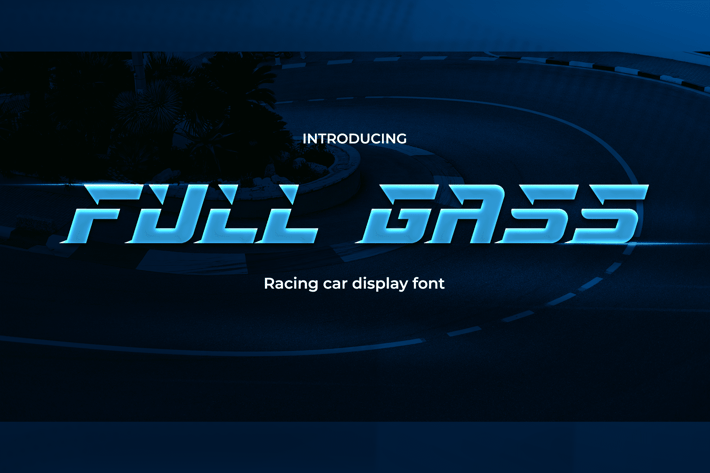
Full Gass - Sporty Car Racing Font
Get ready to take your designs to the fast lane with Full Gass font. This font is perfect for all your sport and racing needs, from game promotions to sports banners and everything in between.
With its sleek and dynamic design, Full Gass font will give your projects the energy and excitement they need to stand out. Its bold and sharp lettering captures the essence of speed and competition, making it the perfect choice for any racing or car-related project.
So rev up your designs and feel the speed with Full Gass font. Whether you're creating game graphics, advertising a racing event, or designing a sport poster, Full Gass font will give your projects the acceleration and adrenaline they need to come out on top.